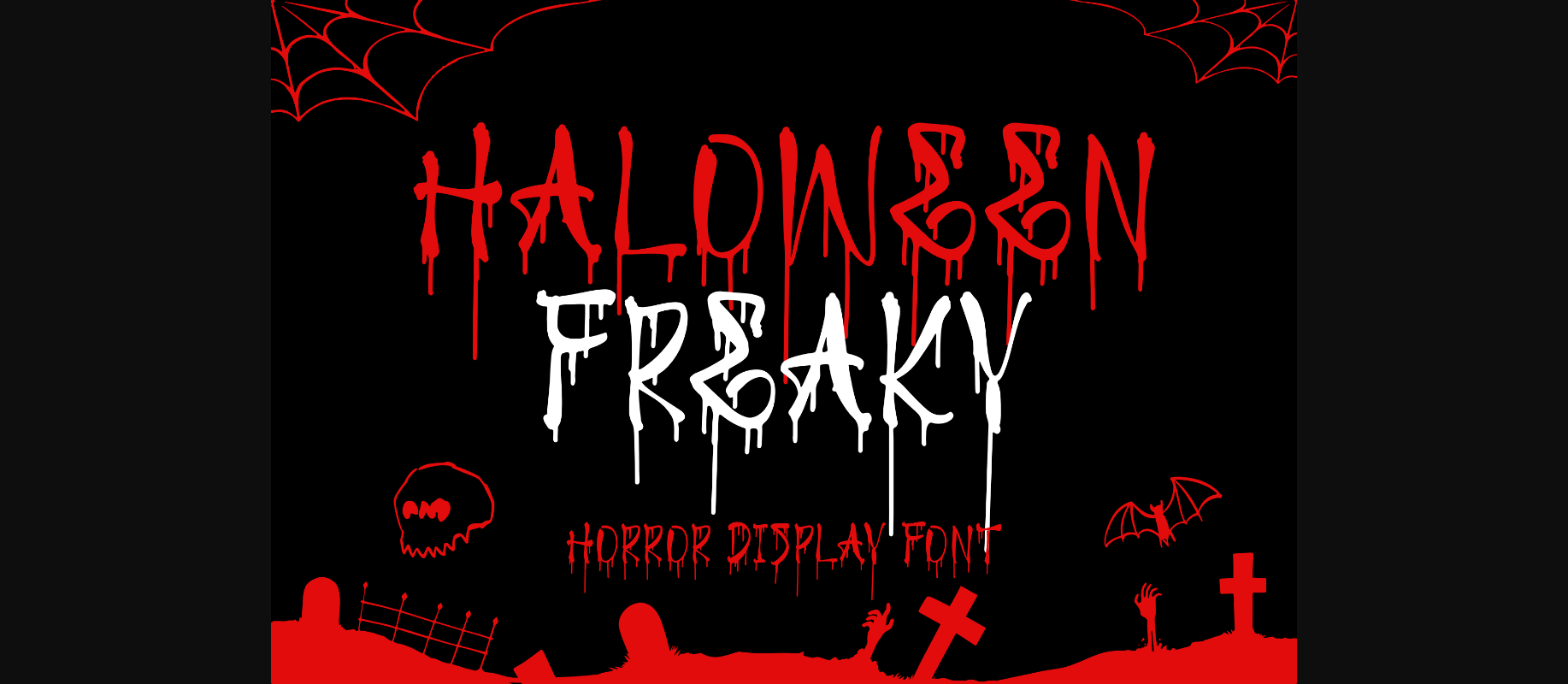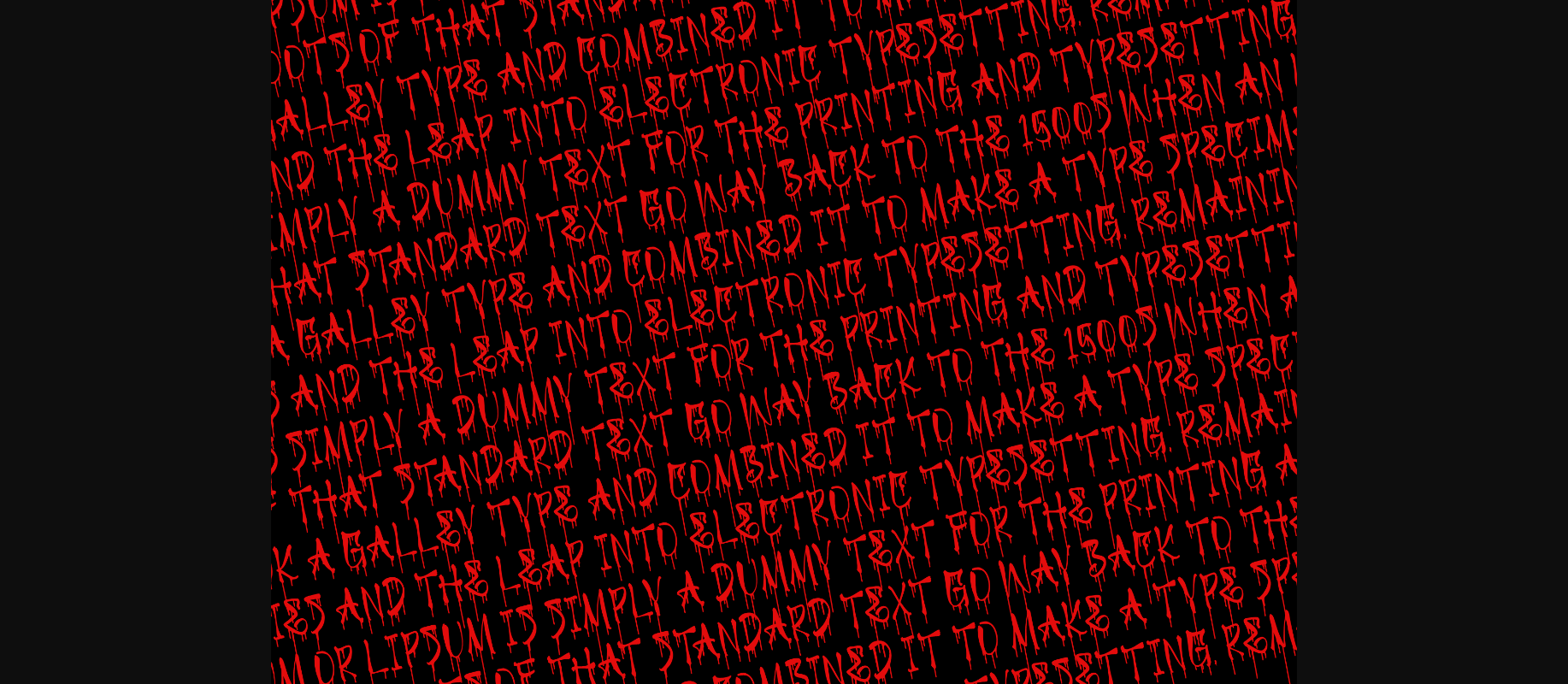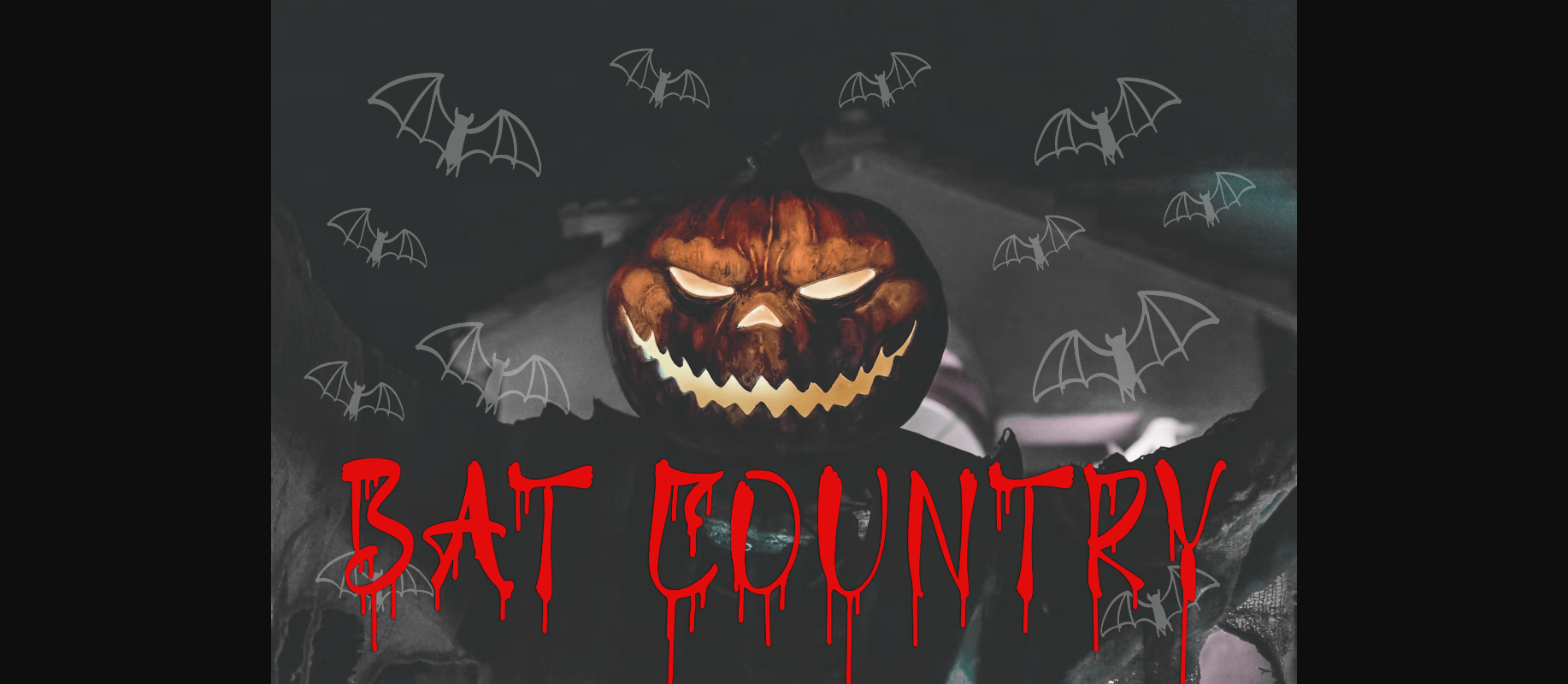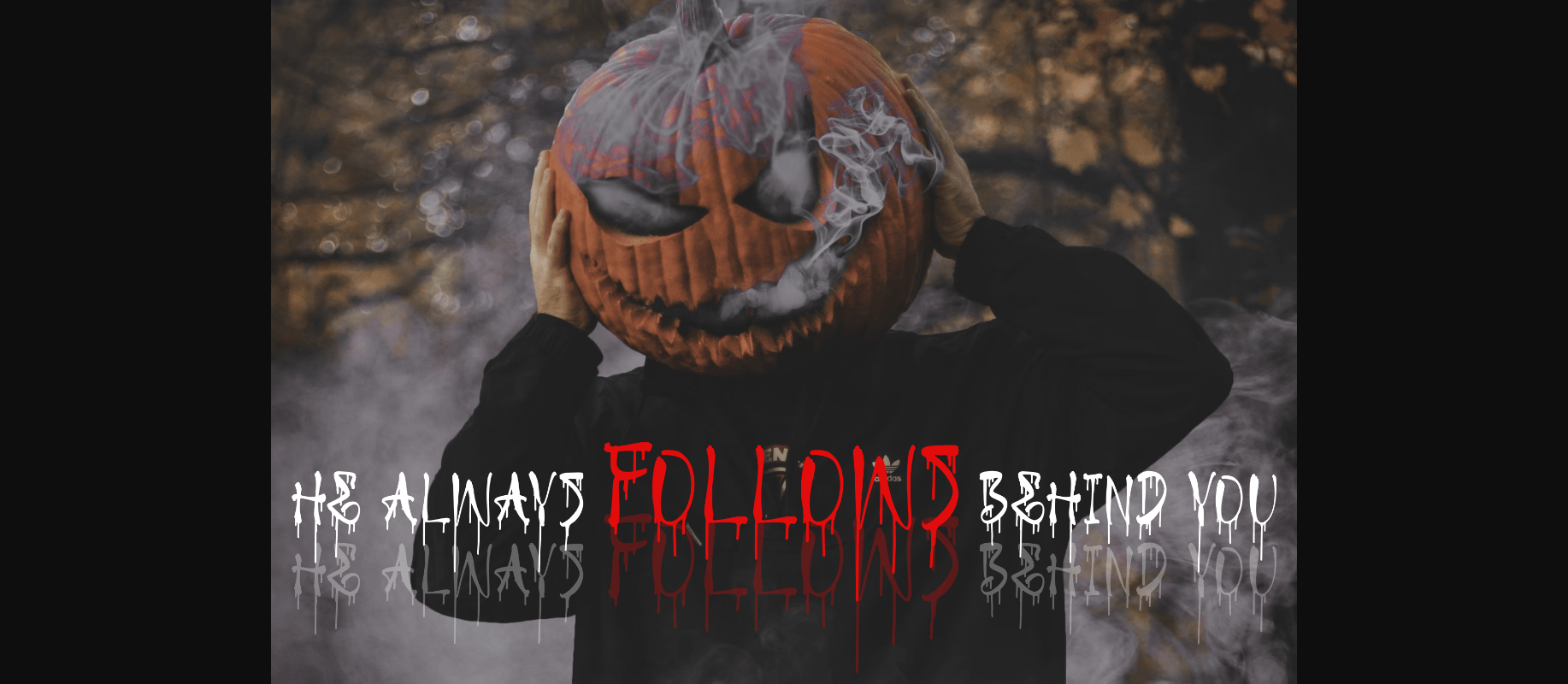
About Haloween Freaky Font
Haloween Freaky – Horror Decorative font suitable for any projects such as logos, branding projects, homeware designs, product packaging, mugs, quotes, posters, shopping bags, t-shirts, book covers, name cards, invitation cards, greeting cards, labels, photography, watermark, special events, and all your other lovely projects that need a creepy taste.